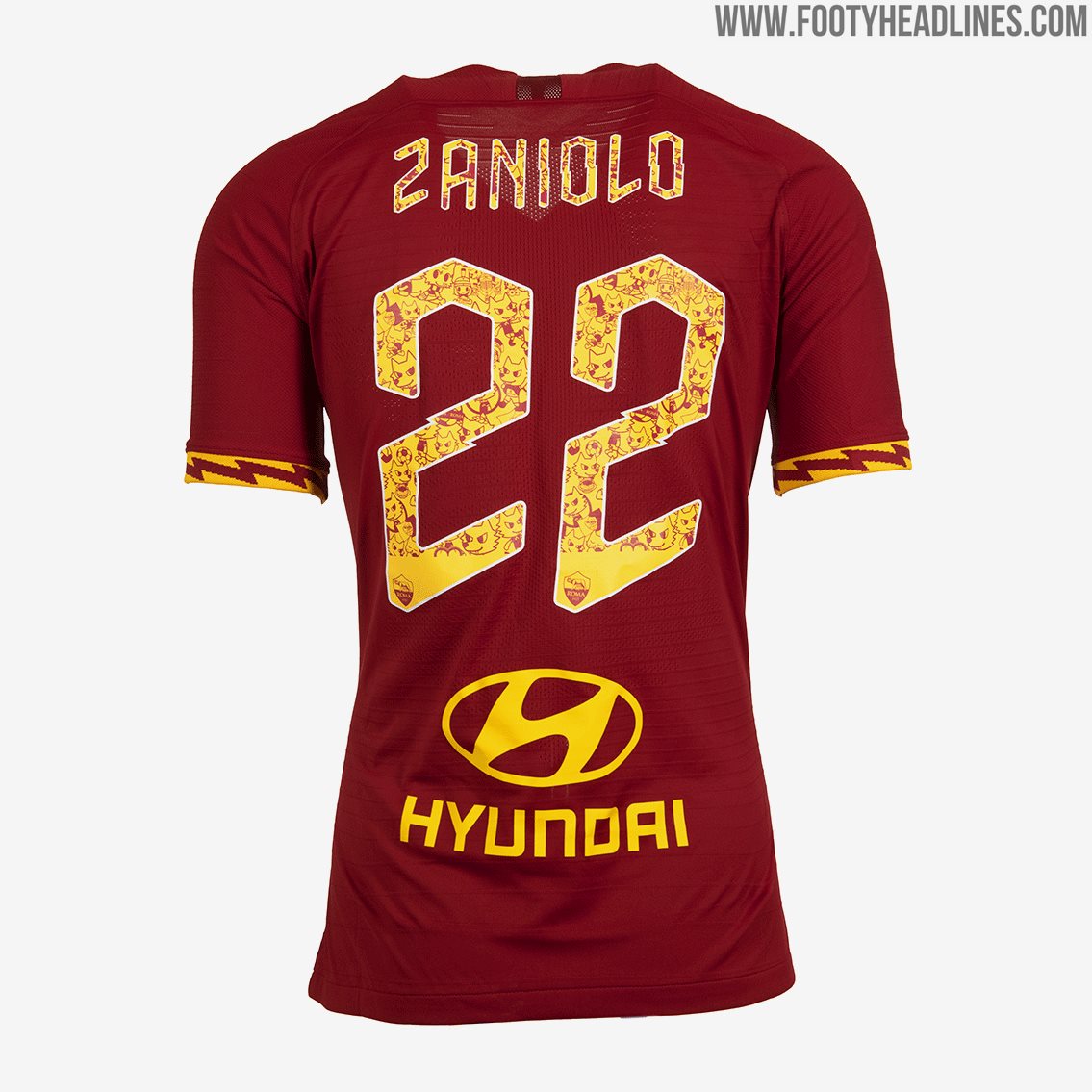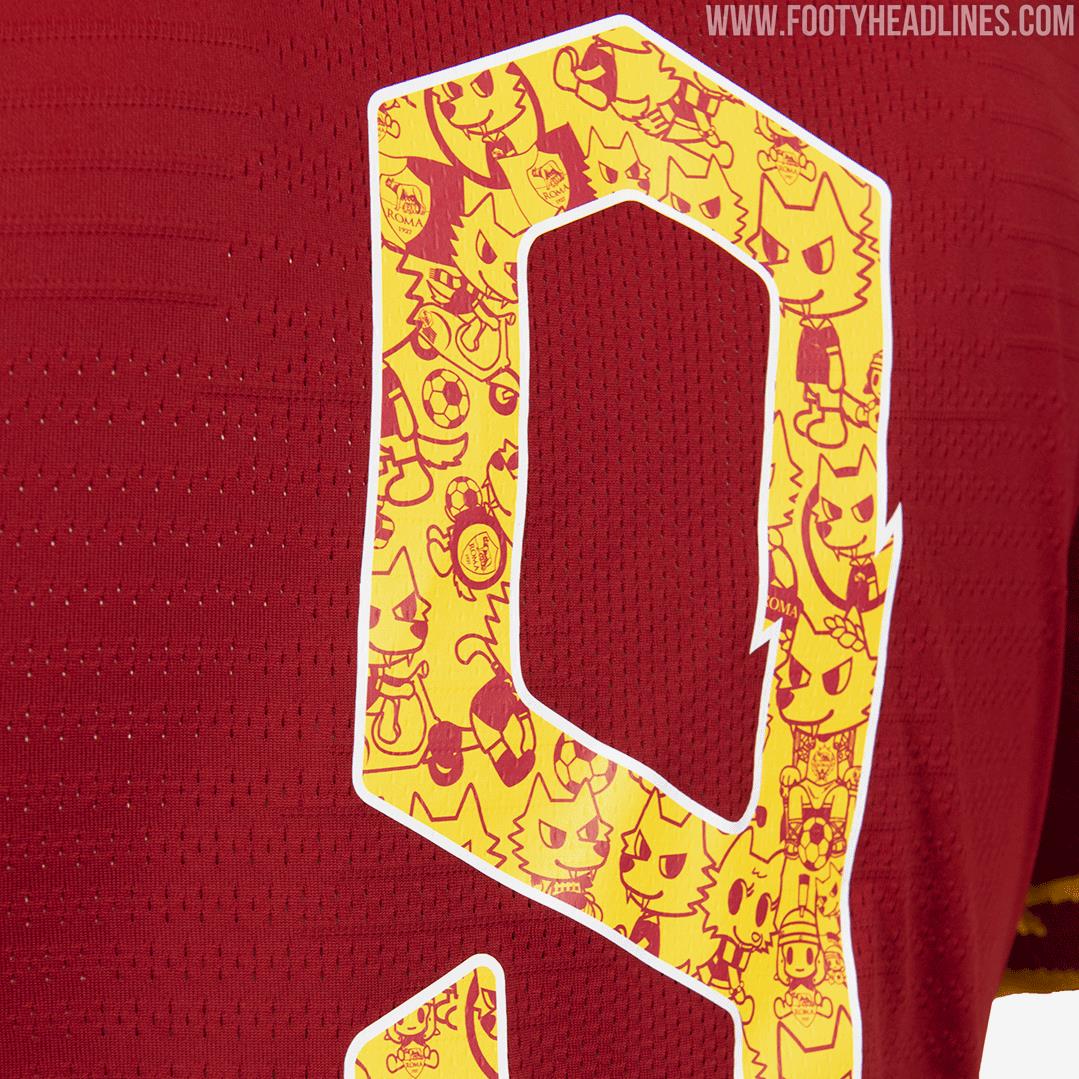
Special AS Roma x Tokidoki Kit Font Released - To Be Worn Today
AS Roma players will wear special name and numbering on their shirts for Wednesday's game against Atalanta, as part of the club's partnership with cult lifestyle brand tokidoki.
The recently-announced partnership between AS Roma and tokidoki began with tokidoki founder Simone Legno redesigning the club's mascot, Romolo.
Special AS Roma x Tokidoki Kit Font
The limited edition design features Romolo and a number of other characters from 'The Legend', the animated short created as part of the partnership launch.